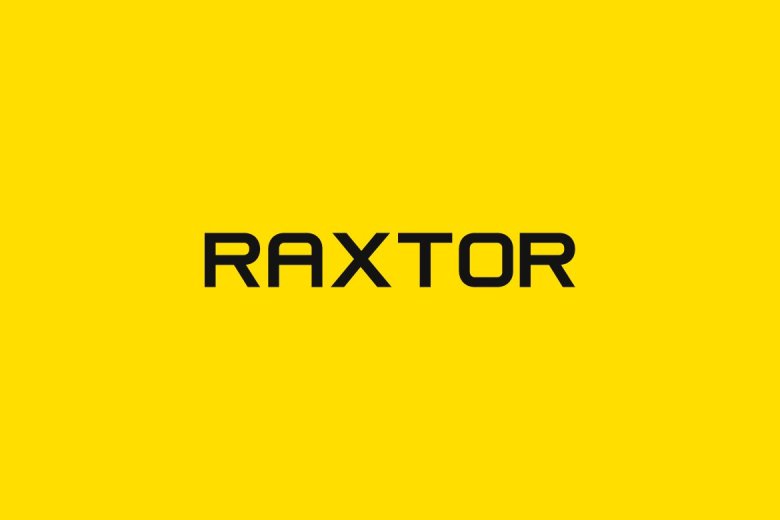
RAXTOR Font
RXTOR is an eye-catching typeface perfect for headlines, large text branding, logotypes, branding and display usage. The font’s distinctive style lends itself to creating memorable brand images and advertising content with creative flair – take a look at some examples to get an idea of its capabilities!
RAXTOR Display Typeface